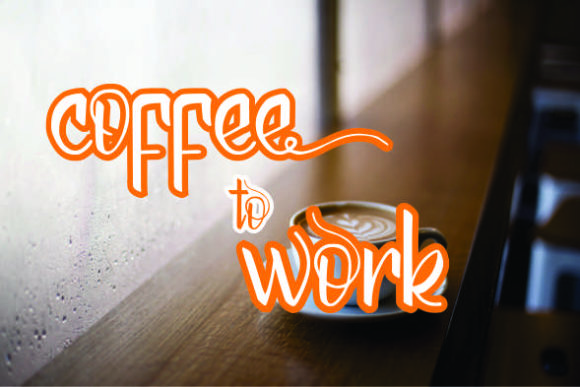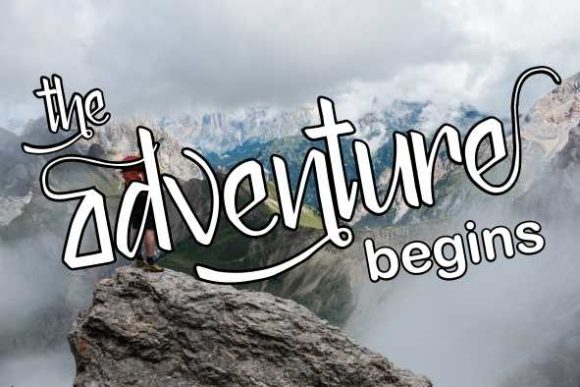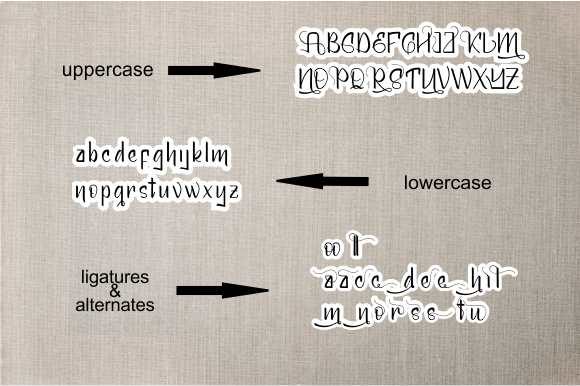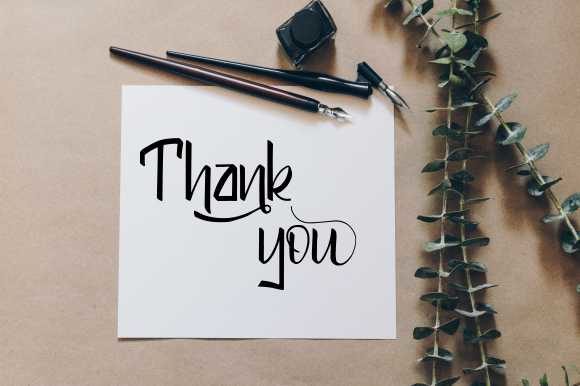
Introduction to Mellunker Font
As designers, we’ve all been there – stuck on a creative project, searching for that perfect element to bring it all together. It’s the little details that can make or break a design, and finding the right font can be a game-changer. For those looking to add a touch of elegance to their next design project, the Mellunker Font is a valuable resource to have in your toolkit.
With its striking handwritten style, the Mellunker Font is perfect for feminine and chic designs. Its high-quality design makes it a great choice for designers looking to add a professional touch to their work. Whether you’re working on a branding project or a creative graphic, the Mellunker Font is sure to impress.
Key Features of Mellunker Font
- Perfect for digital designs, logos, and branding materials with its modern and sleek aesthetic
Honest Review: Mellunker Font
I recently stumbled upon the Mellunker Font while searching for a high-quality design resource for a creative project. I was blown away by its modern aesthetic and versatility.
- ✨ Sleek and clean design that’s perfect for minimalistic designs
- ✨ Comes in a range of weights and styles to suit different design needs
- ⚠️ Limited language support, making it less suitable for multilingual projects
- ⚠️ Some users may find the font’s modern style too trendy or overpowering
Overall, I’m impressed with the Mellunker Font’s quality and versatility. While it may not be perfect for every design project, it’s an excellent addition to any designer’s toolkit. If you’re looking for a high-quality, free design resource, I highly recommend giving it a try.
The Mellunker Font features a transparent background, allowing for seamless integration with your design. Its high-quality design makes it perfect for use in logos, branding materials, and other creative projects where a clean and modern font is required.